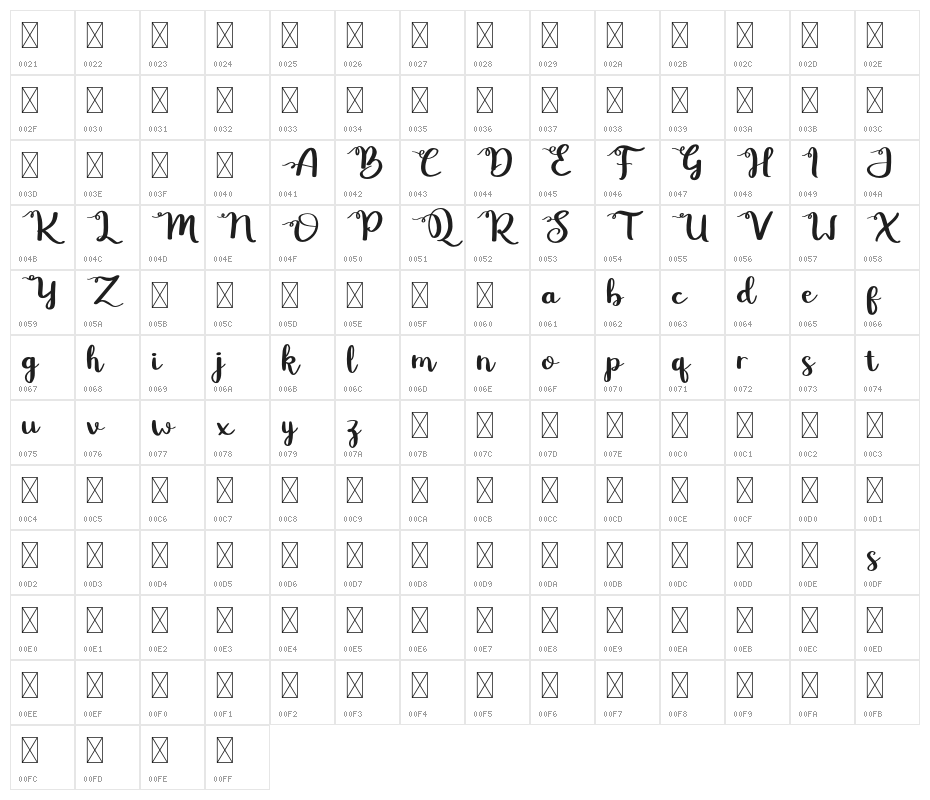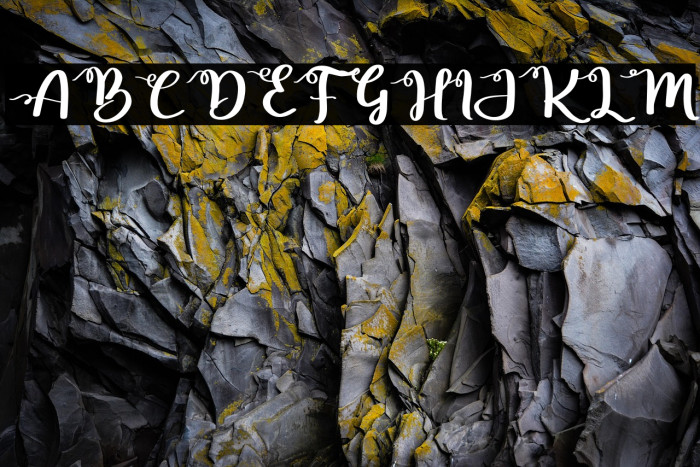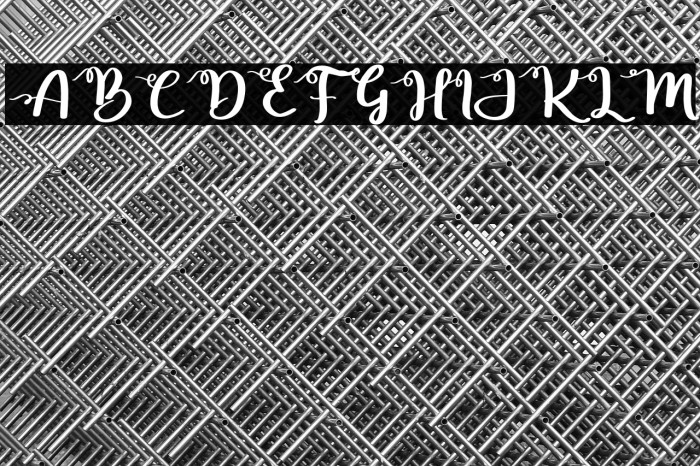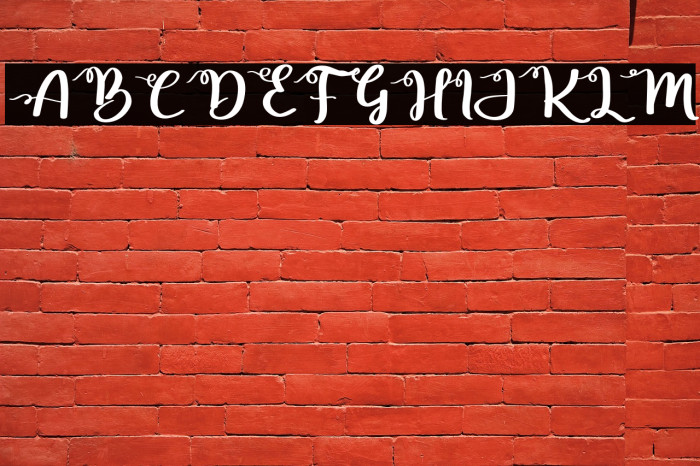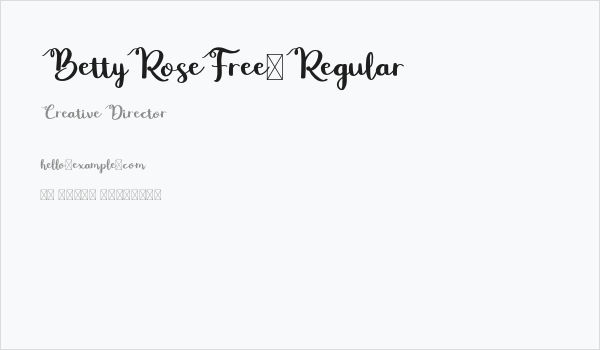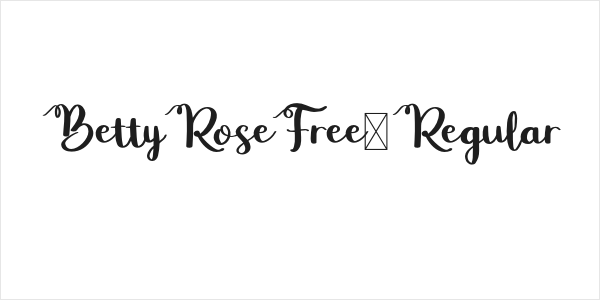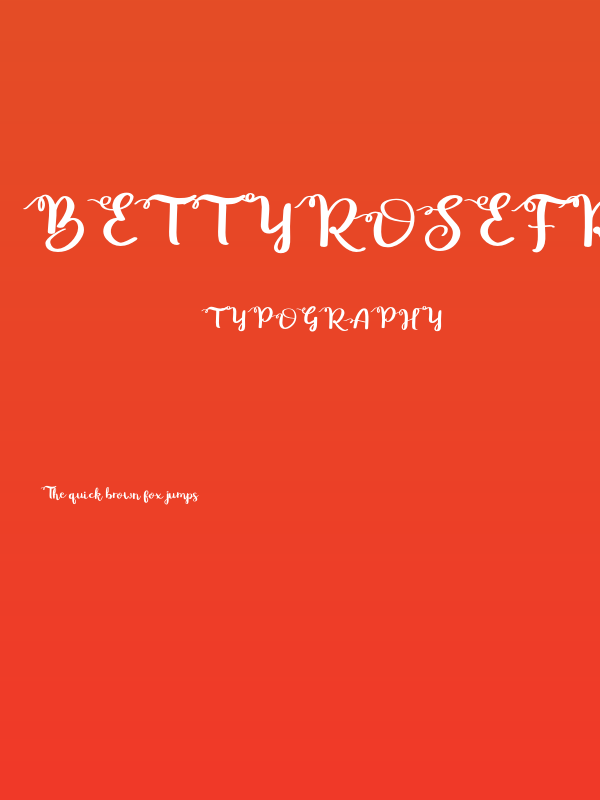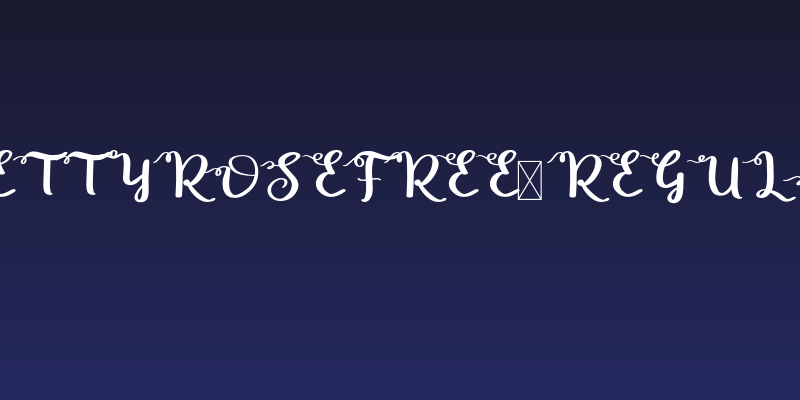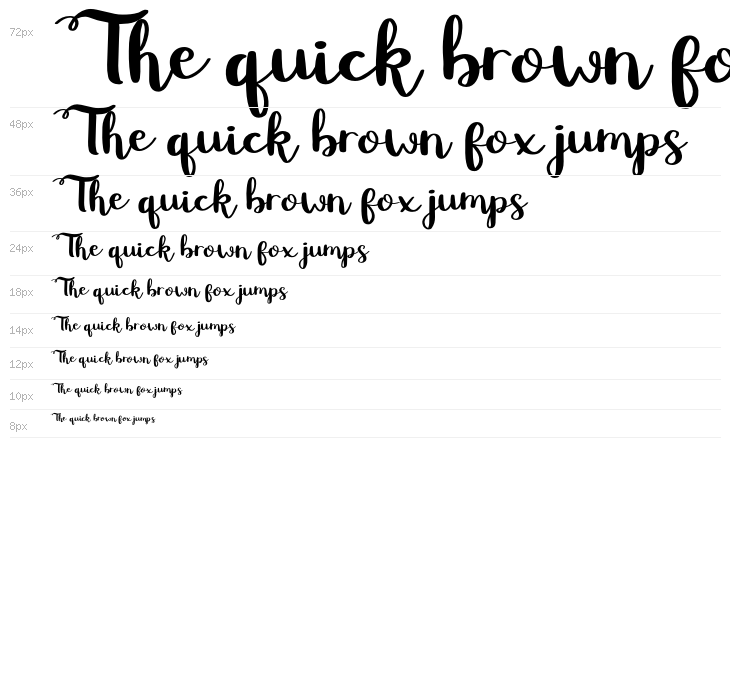
BettyRoseFree-Regular Font
BettyRoseFree-Regular Description
This font features a whimsical and elegant script style with flowing, interconnected letters. The uppercase characters are adorned with delicate swirls and loops, adding a decorative touch. The lowercase letters maintain a smooth, cursive flow, making them highly legible despite their artistic flair. The font exudes a sense of charm and sophistication, suitable for creative and formal applications. Its bold strokes and consistent line weight contribute to its striking appearance, while the moderate spacing between characters ensures readability.
| Use Case | Logos, Invitations, Decorative Text |